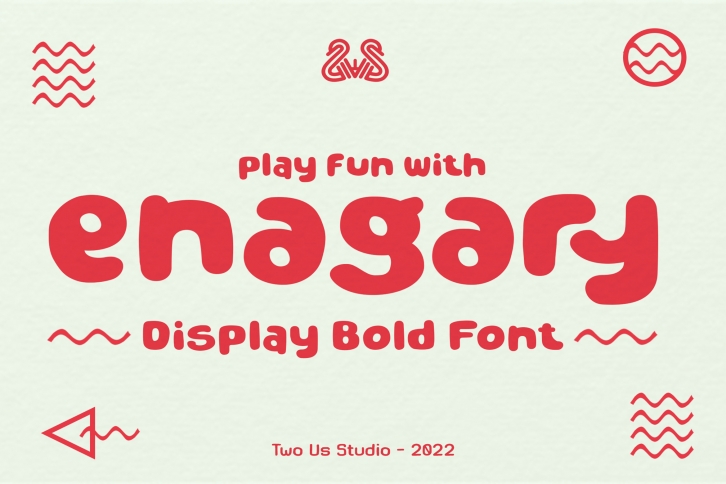
Enagary is a cool and casual looking display font. It embodies playfulness and authenticity and is the perfect choice for any children activity or school project.